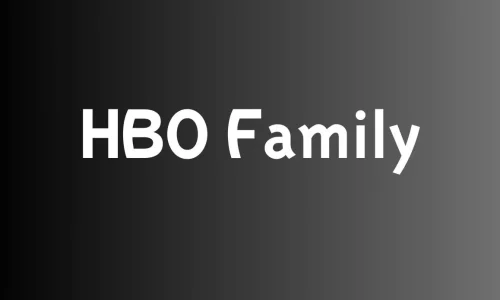
Hendrick Rolandez, a professional designer, created the Coco font, which is a sans serif typeface. This font was released in 2012 and has become popular worldwide for its greater y-height and pleasant character appearance. It features 8 unique styles and approximately 220 glyphs.
Coco Font Family
| Name | Coco Font |
| Designer | Hendrick Rolandez |